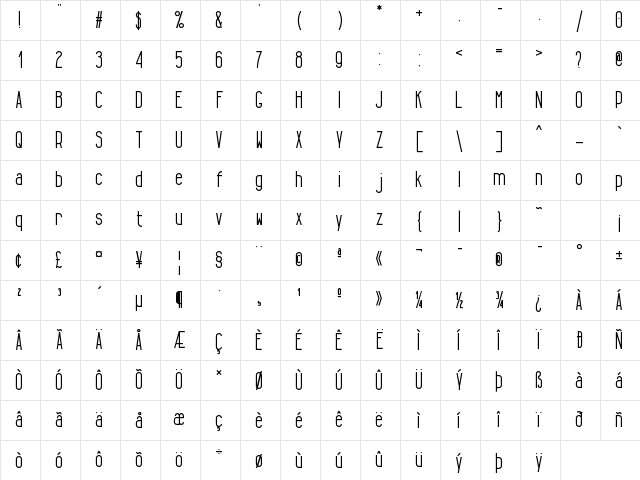
Tall & Lean Regular
Foundry: Essqu￿ Productions
Designer: Stephen Knouse
Design Context for Tall & Lean
Tall & Lean is a composed and adaptable typeface that performs quietly and consistently across a wide range of design contexts.